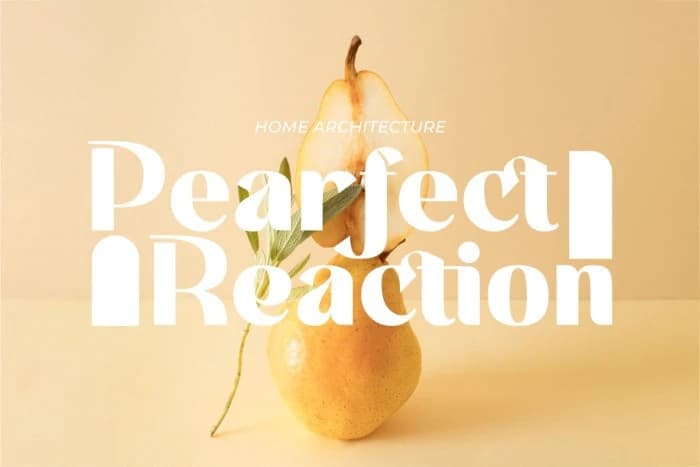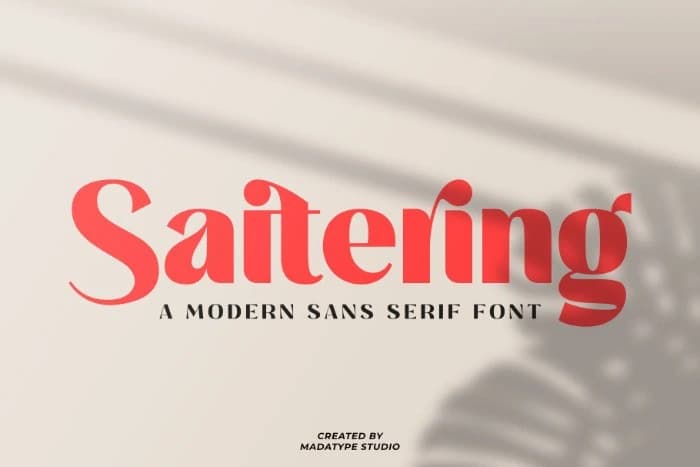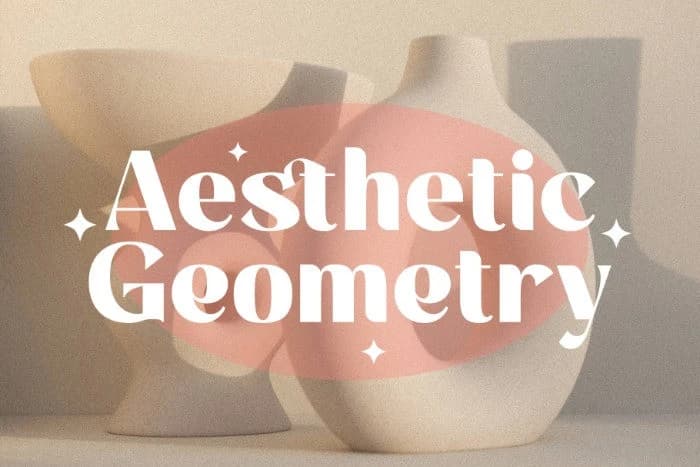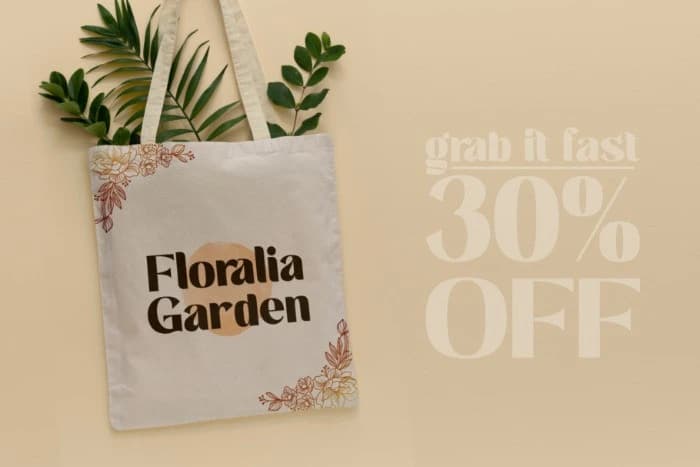
Saitering Font is a contemporary sans serif font that effortlessly blends elegance with strength. Its bold and thick shapes make a powerful statement, while its refined lines maintain an air of sophistication.